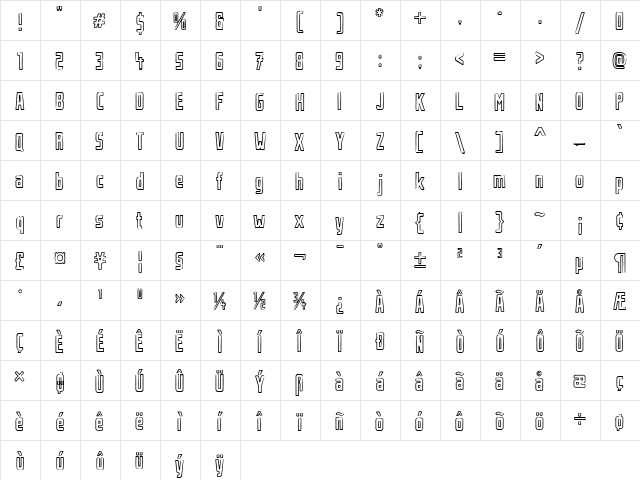
Urban Rubber Regular
| Foundry | Urban Rubber is a modified Font by "https://www.nils-von-Blanc.de" 2008. I modfied the following Sets: Commressed, Outline, Stripes, College. The original Stahlbeton Font was created by "Patric Schwarzhttps://www.neuefabrik.de" 2007. |
| Designer | Nils von Blanc |
Design Context for Urban Rubber Typeface
Urban Rubber is a composed and adaptable typeface that performs quietly and consistently across a wide range of design contexts.